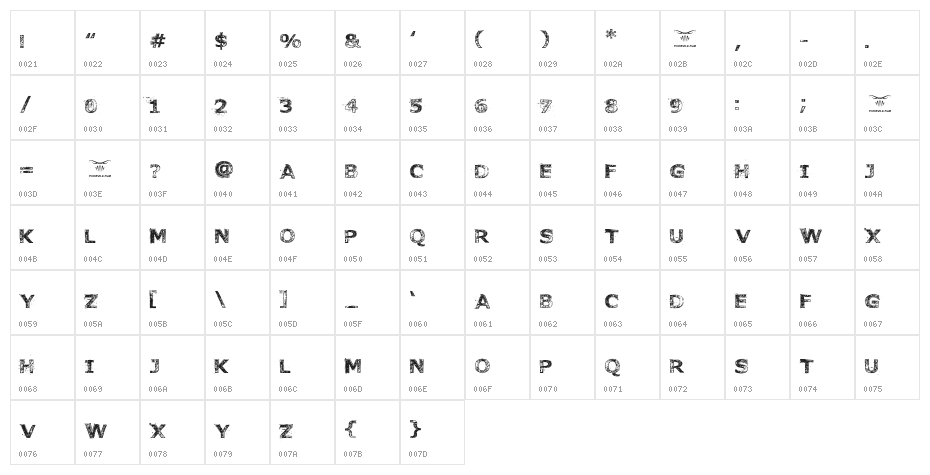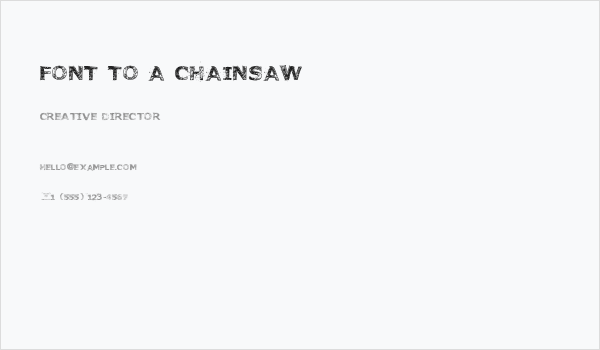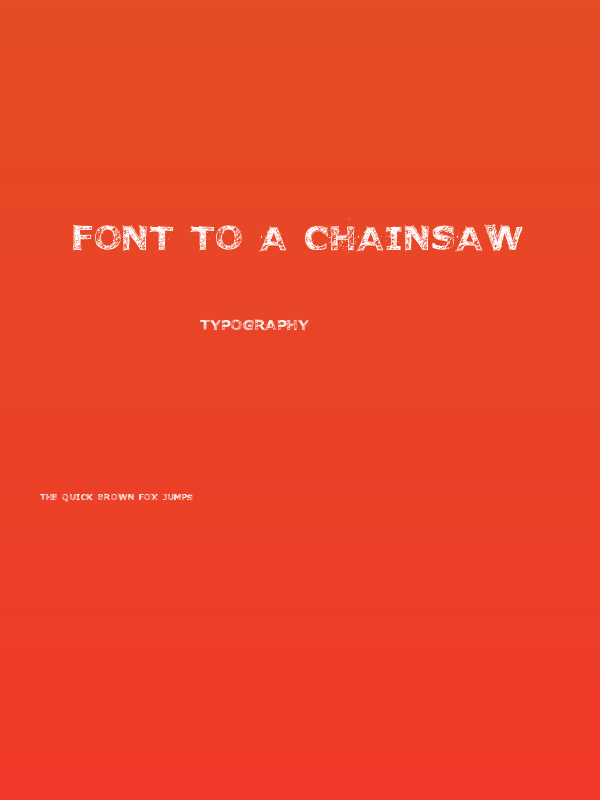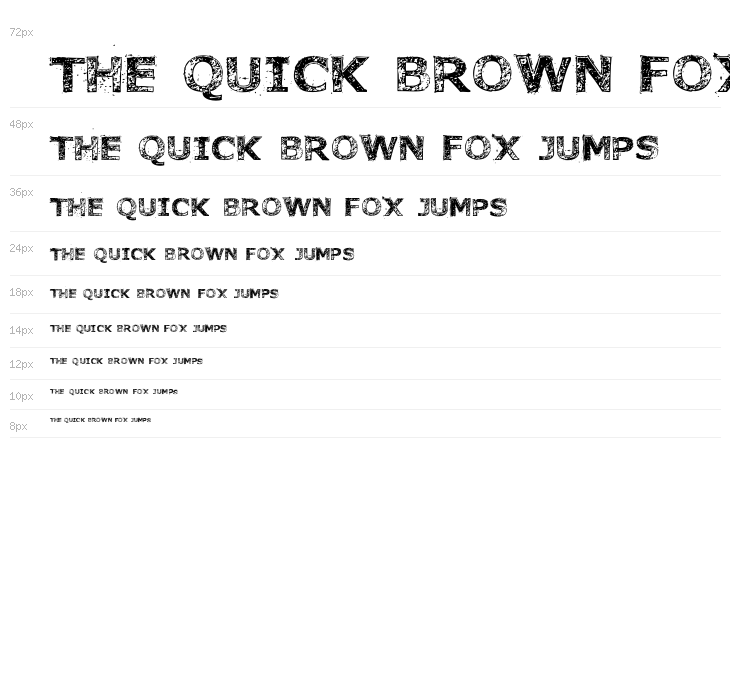
Font to a Chainsaw Font
Font to a Chainsaw Description
This font features a rugged, distressed appearance, reminiscent of worn-out machinery or industrial textures. The characters are bold and heavily textured, giving them a gritty, weathered look. The uppercase and lowercase letters maintain a consistent style, with jagged edges and a rough finish that suggests a sense of decay or erosion. The numerals and special characters follow the same aesthetic, ensuring a cohesive look across all glyphs. This font's unique style makes it stand out, ideal for projects that require a bold, impactful visual statement.
| Proposed Projects | Ideal for posters, album covers, horror-themed designs, and industrial branding. |